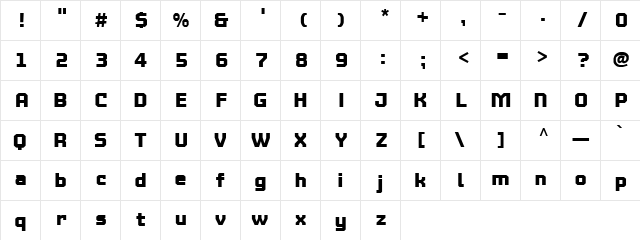
MTV2C Regular Font Preview
MTV2C Regular
MTV2C Regular Font Details
Design Context for MTV2C Typeface
MTV2C takes a measured approach to typography — its balanced proportions and neutral character make it a reliable workhorse for both digital and print work.